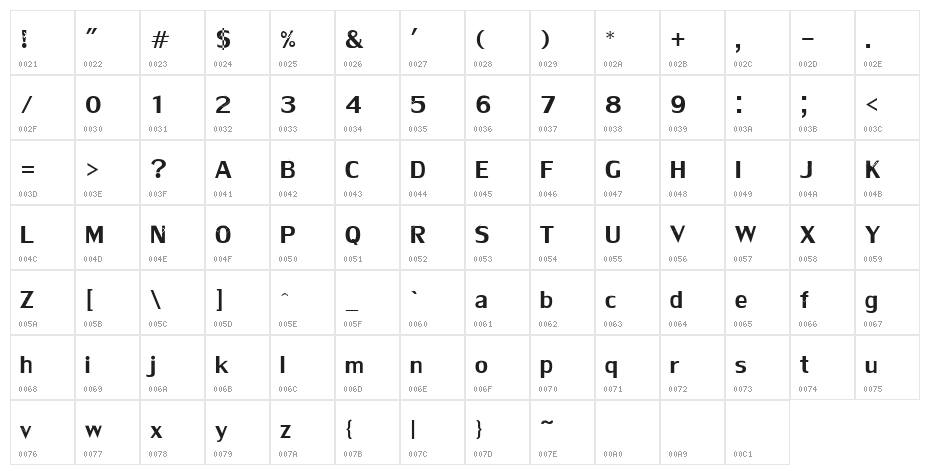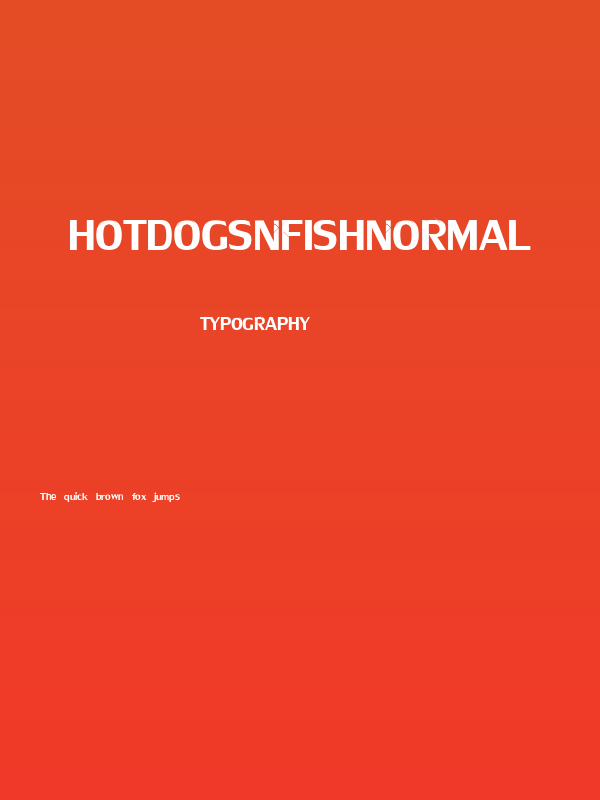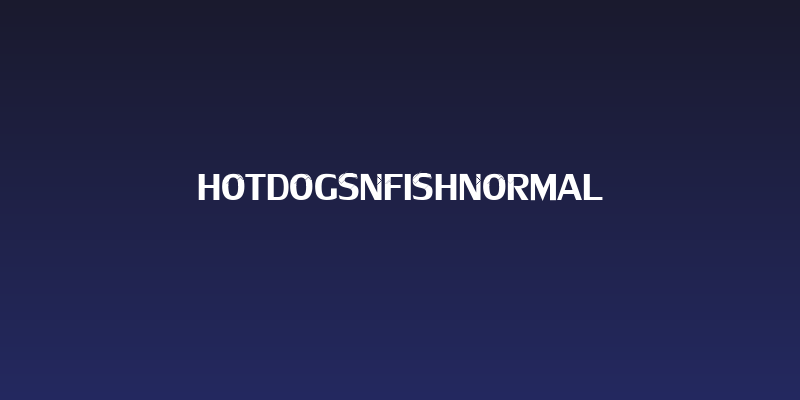
HotDogsNFishNormal Font
HotDogsNFishNormal Description
This font features a bold and modern sans-serif style with clean lines and a strong presence. The uppercase letters are slightly condensed, giving a compact and efficient look, while the lowercase letters maintain a consistent height and width, ensuring readability. The numerals are well-proportioned, aligning perfectly with the overall design. Special characters are distinct and harmonize with the rest of the font, making it versatile for various applications. The uniform stroke width across all characters provides a cohesive and professional appearance, suitable for both digital and print media.
| Proposed Projects | Ideal for branding, advertising, headlines, and digital content where a strong, modern look is desired. |